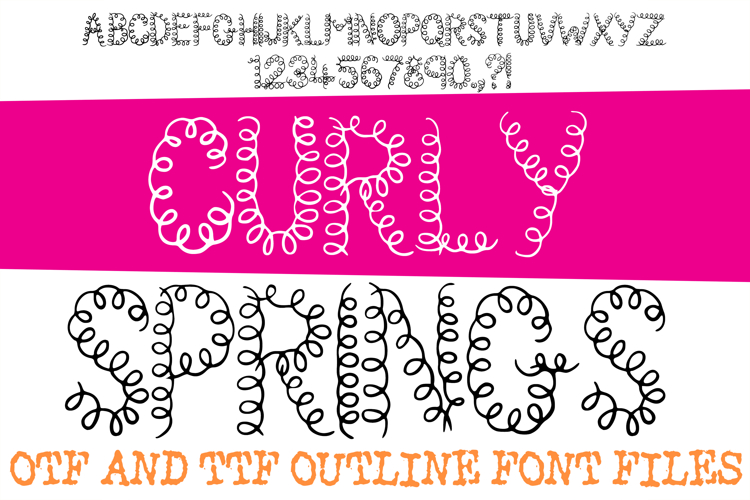
The Curly Springs Font is a whimsical, high-energy display typeface entirely constructed from tight, looping coils and spring-like linework. Mimicking the bounce of coiled wire and playful telephone cords, this completely unique alphabet turns every stroke into a series of joyful twists and turns. It is a brilliant choice for designers working on quirky birthday invitations, energetic children's book titles, festive social media graphics, and creative scrapbooking layouts.
The design captures a sense of lighthearted, kinetic motion—as if each letter could compress and boing right off the screen. Whether you are aiming for a bubbly, youthful aesthetic or creating eccentric headlines for a craft-focused brand identity, this font delivers a captivating, texture-rich personality that stands out from standard hand-drawn lettering.
Intricate Coiled Construction: Every letter and number is meticulously built out of continuous loops, offering a distinct visual texture that instantly grabs attention.
Whimsical and Bouncy Energy: The spiral-heavy letterforms bring a cheerful, dynamic rhythm to words, making it perfect for lighthearted, upbeat projects.
Distinct Fine-Line Contrast: The airy, open nature of the curls provides excellent contrast when paired with heavy solid elements or busy background patterns.
Playful Crafting Aesthetic: Perfectly suited for cutting machines, vinyl projects, and custom merchandise that require a highly creative, hand-twisted look.